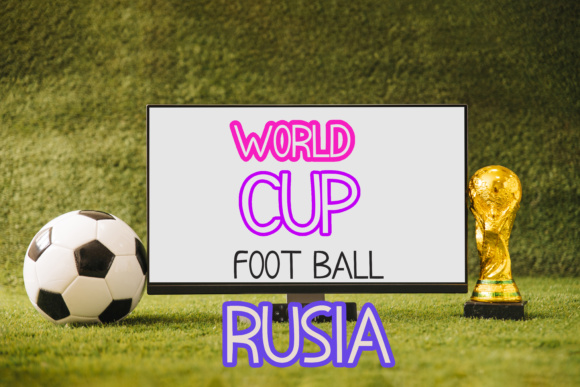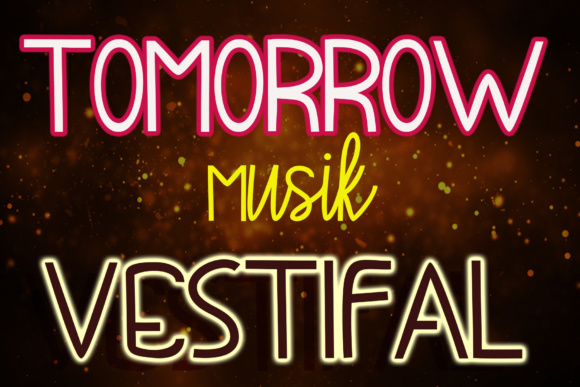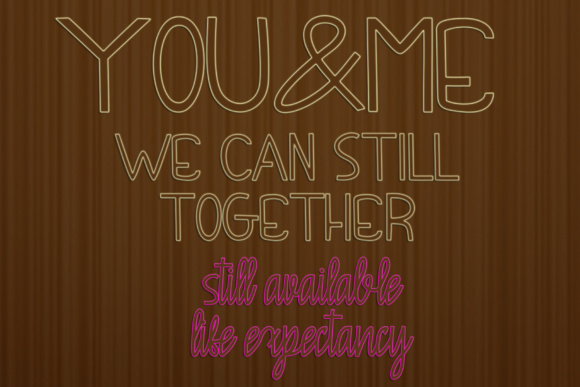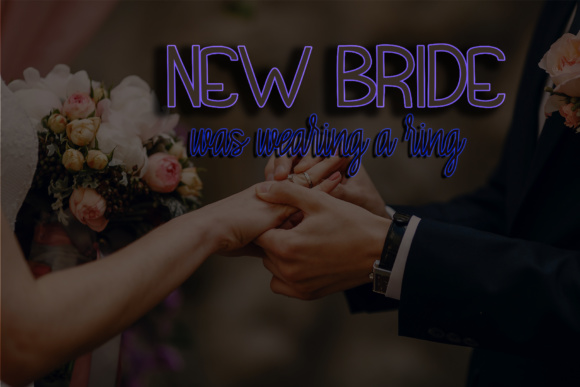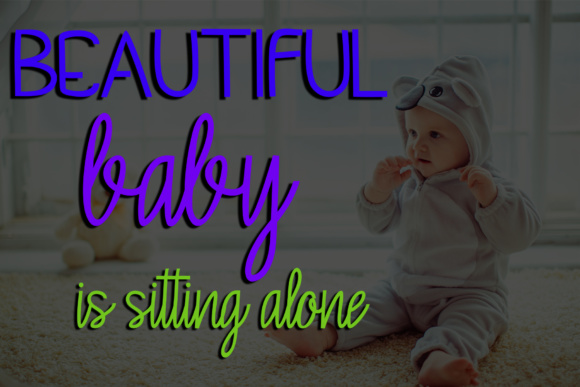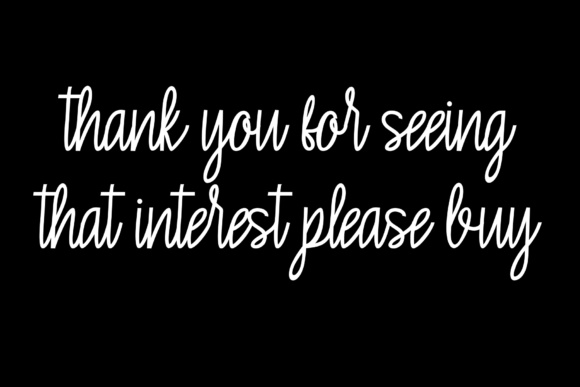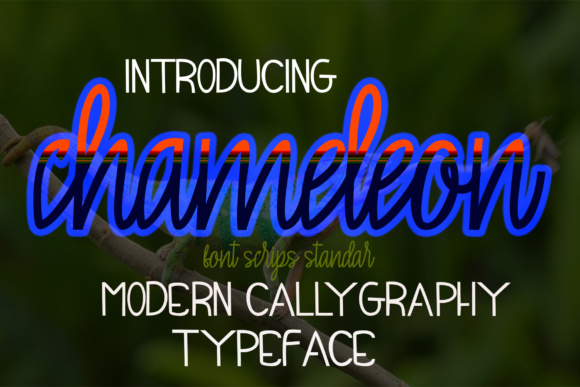
The Chameleon Font: A Modern Calligraphy Marvel for Designers and Crafters
In the realm of typography, few fonts manage to capture the essence of modern design while exuding a sense of elegance and uniqueness. The Chameleon Font, with its handwriting-inspired design and contemporary calligraphy form, stands out as a remarkable exception. This article delves into the characteristics, applications, and benefits of the Chameleon Font, making it an indispensable resource for designers and crafters seeking to elevate their creative projects.
Origins and Design
The Chameleon Font is a meticulously crafted typeface, designed with a focus on achieving a natural writing style. Unlike many fonts that rely on digital algorithms for their creation, Chameleon Scrip is the result of careful handwriting and a deep understanding of calligraphy. This process imbues the font with a unique personality, characterized by its fluid strokes and modern aesthetic. The result is a typeface that feels both approachable and sophisticated, making it versatile for various design applications.
- Natural Writing Style: The Chameleon Font boasts a writing style that closely mimics natural handwriting. This feature makes it perfect for projects where a personal touch is desired, such as in branding, invitations, and personal correspondence.
- Modern and Unique Calligraphy Form: Chameleon’s calligraphy form is not only modern but also uniquely expressive. It brings a fresh perspective to traditional calligraphy, offering designers a chance to experiment with new and exciting typography.
- Versatility: Given its design, the Chameleon Font can be used across a wide range of projects. From digital media, such as websites and social media graphics, to print materials like brochures, posters, and business cards, Chameleon adapts seamlessly.
Applications in Design and Crafting
The Chameleon Font’s distinctive characteristics make it an excellent choice for various design and crafting projects. Here are some areas where it truly shines:
- Branding and Logo Design: For businesses looking to establish a personal and modern brand image, Chameleon can be a valuable asset. Its unique calligraphy form helps in creating memorable logos and brand names.
- Stationery and Invitations: The font’s natural and elegant writing style is perfect for designing stationery sets, wedding invitations, and other formal or informal event invites.
- Digital and Print Media: Whether it’s for a website header, a blog post, a brochure, or an advertisement, Chameleon’s versatility ensures it can be scaled and used effectively across different mediums.
- Crafting and DIY Projects: Crafters who enjoy lettering, scrapbooking, and other paper crafts will find Chameleon to be a great addition to their toolkit. It allows for the creation of personalized and visually appealing projects.
Tips for Using the Chameleon Font
To make the most of the Chameleon Font, consider the following tips:
- Pair with Complementary Fonts: For optimal results, pair Chameleon with fonts that complement its modern yet personal feel. Simple sans-serif or serif fonts often work well in contrast.
- Experiment with Colors and Textures: Don’t be afraid to experiment with different colors and textures. Chameleon’s versatility means it can be used in a variety of contexts, from minimalist designs to more elaborate and textured backgrounds.
- Adjust Line Spacing and Kerning: To maintain readability and aesthetic appeal, pay attention to line spacing and kerning. Adjusting these elements can significantly enhance the overall look of your text.
| Author | maydhen studio |
The Chameleon Font, with its modern and unique calligraphy form, offers designers and crafters a powerful tool for creating visually appealing and distinctive projects. Its natural writing style, versatility, and adaptability make it suitable for a wide range of applications, from professional branding to personal crafting projects. By incorporating Chameleon into your design repertoire, you can add a touch of elegance and personality to your work, setting it apart in a crowded creative landscape.
Whether you’re a seasoned designer looking for a fresh typographic approach or a crafter seeking to add a professional touch to your projects, the Chameleon Font is an excellent choice. Its ability to blend modernity with a personal, handcrafted feel makes it a valuable asset in the world of design and crafting.